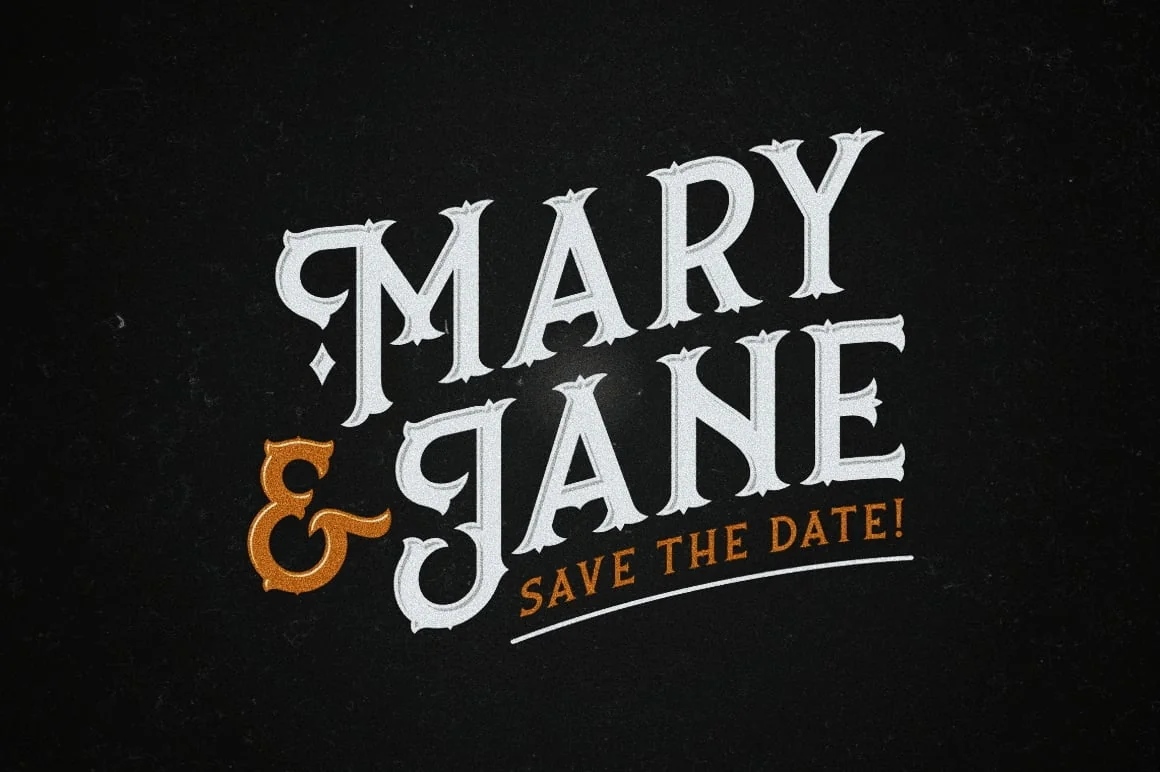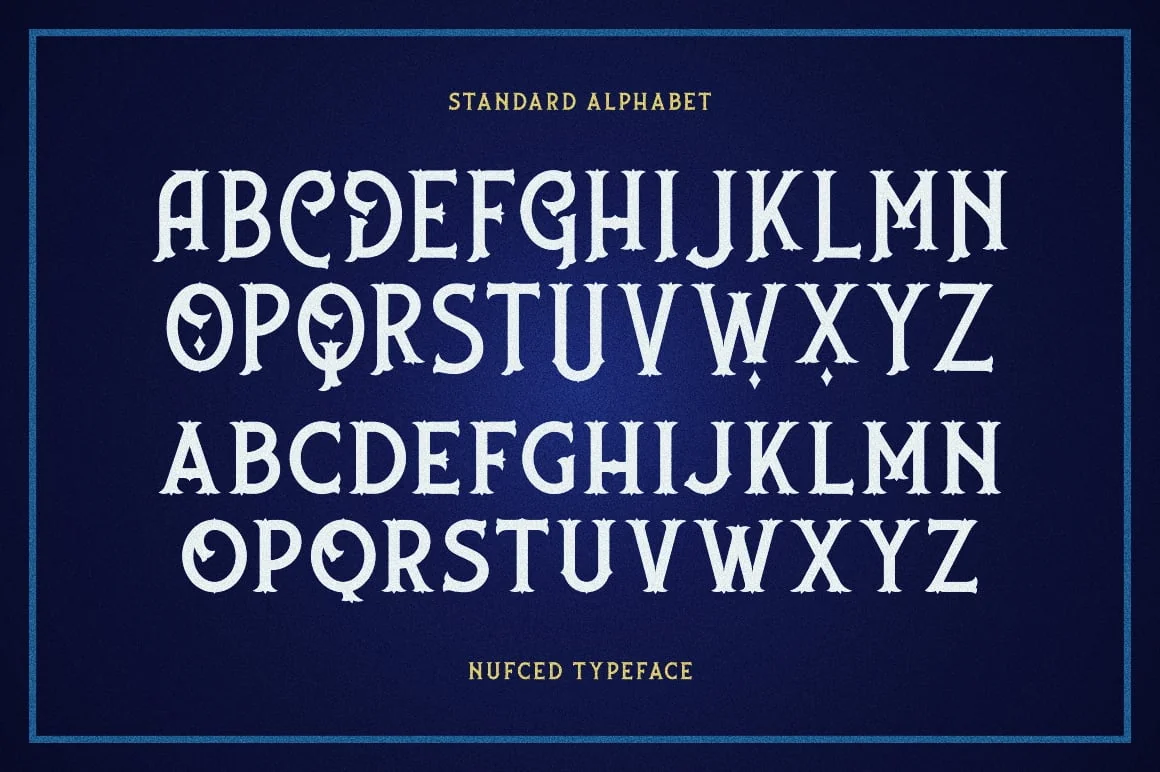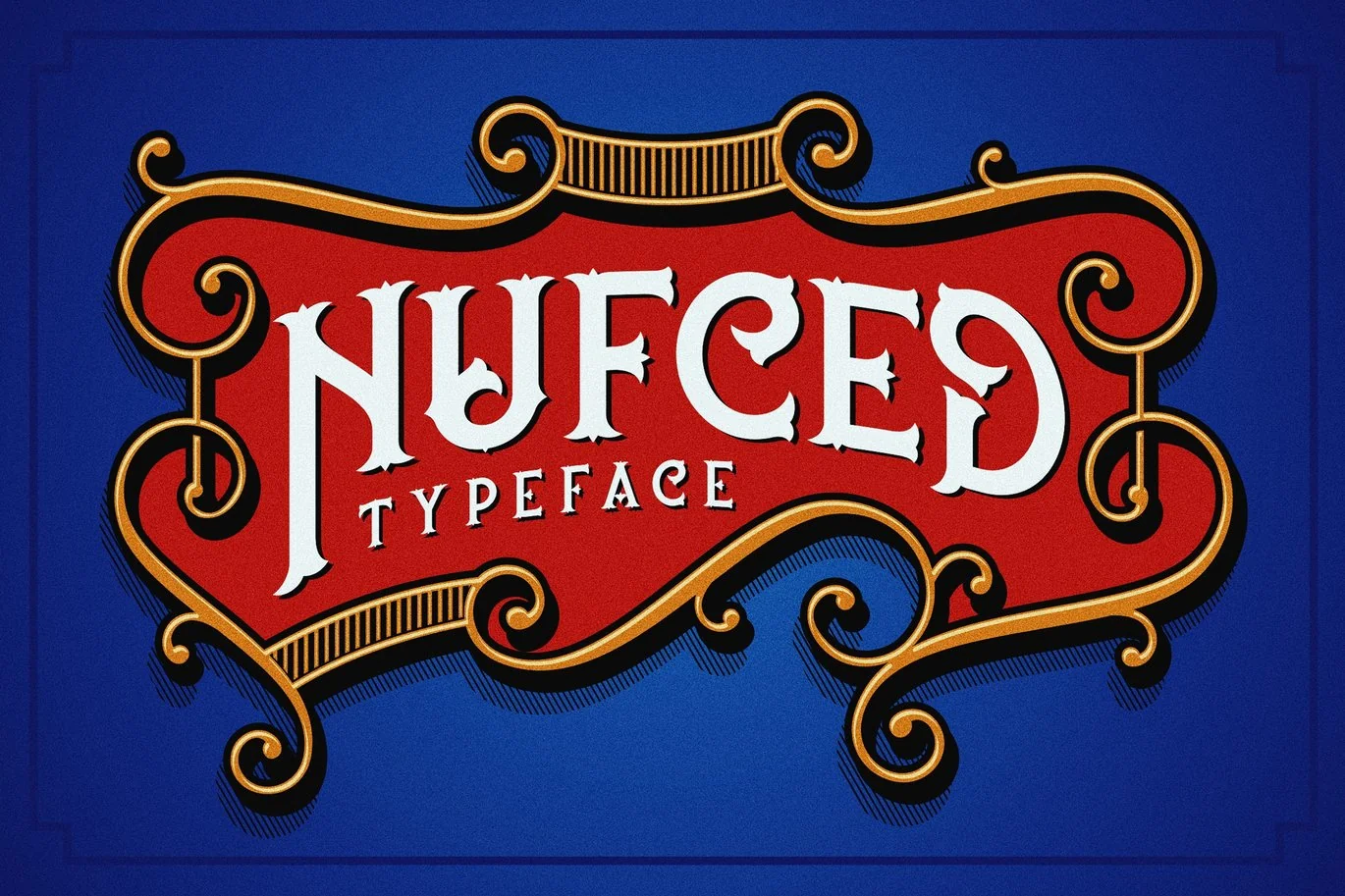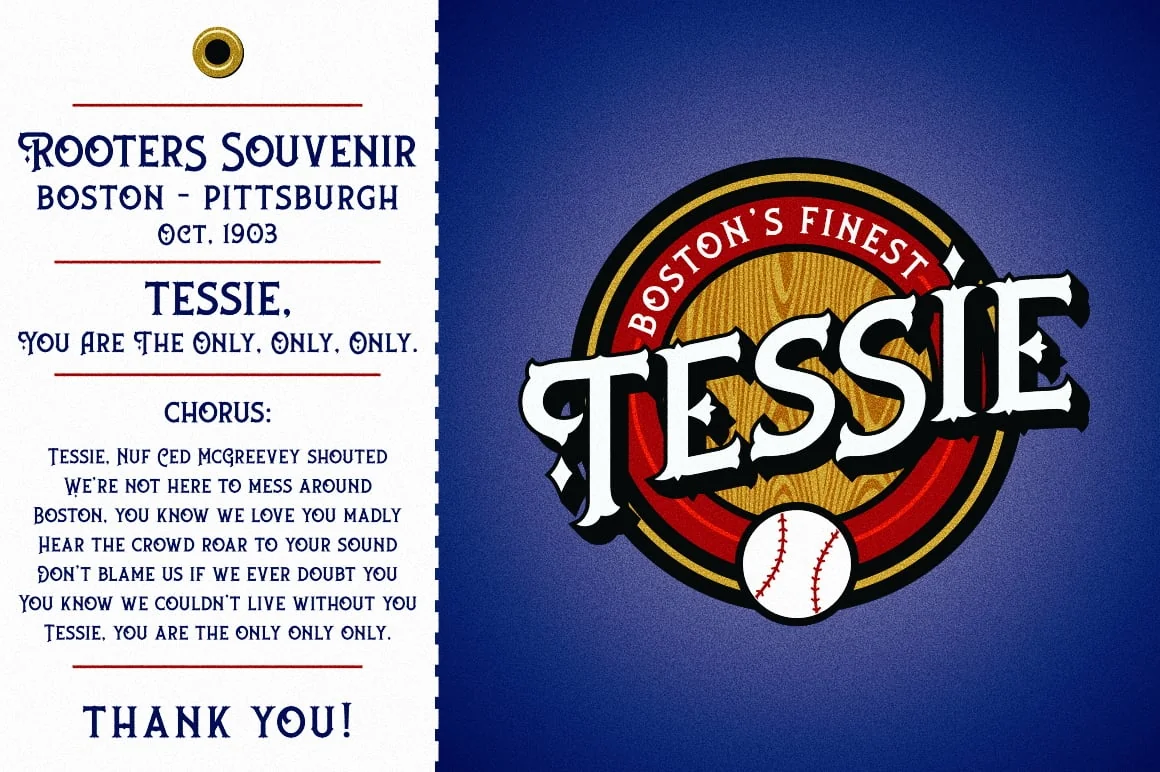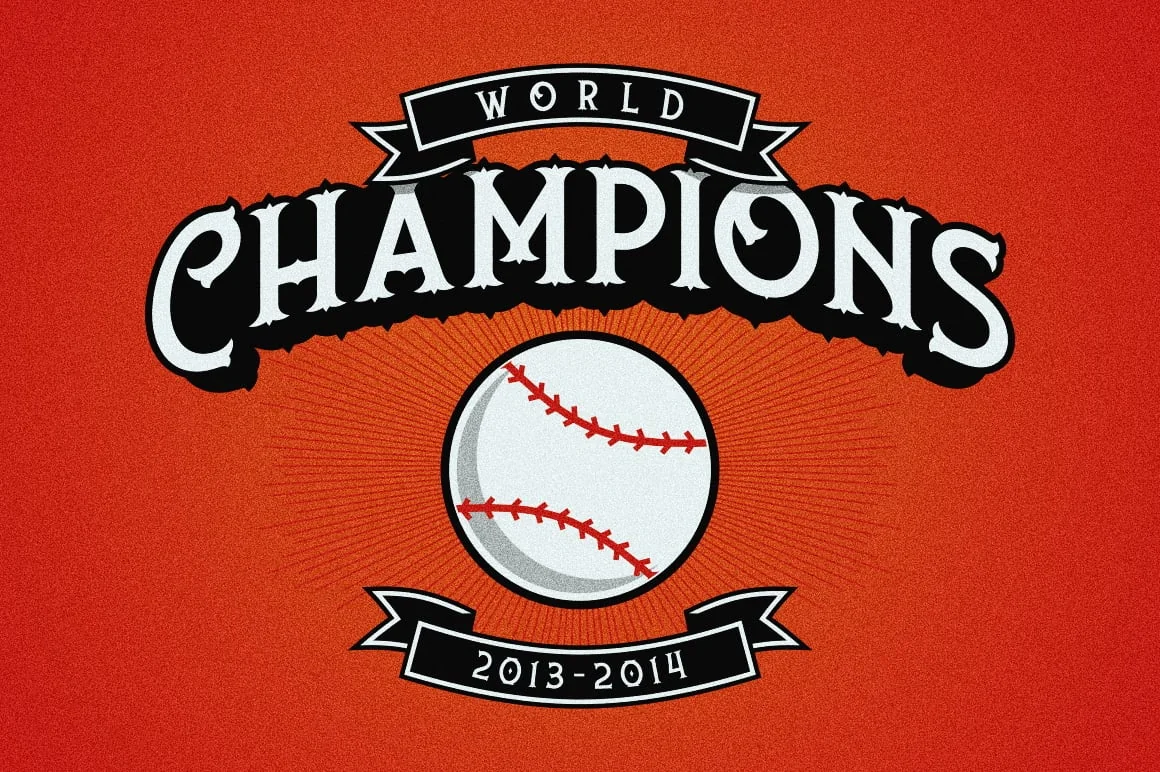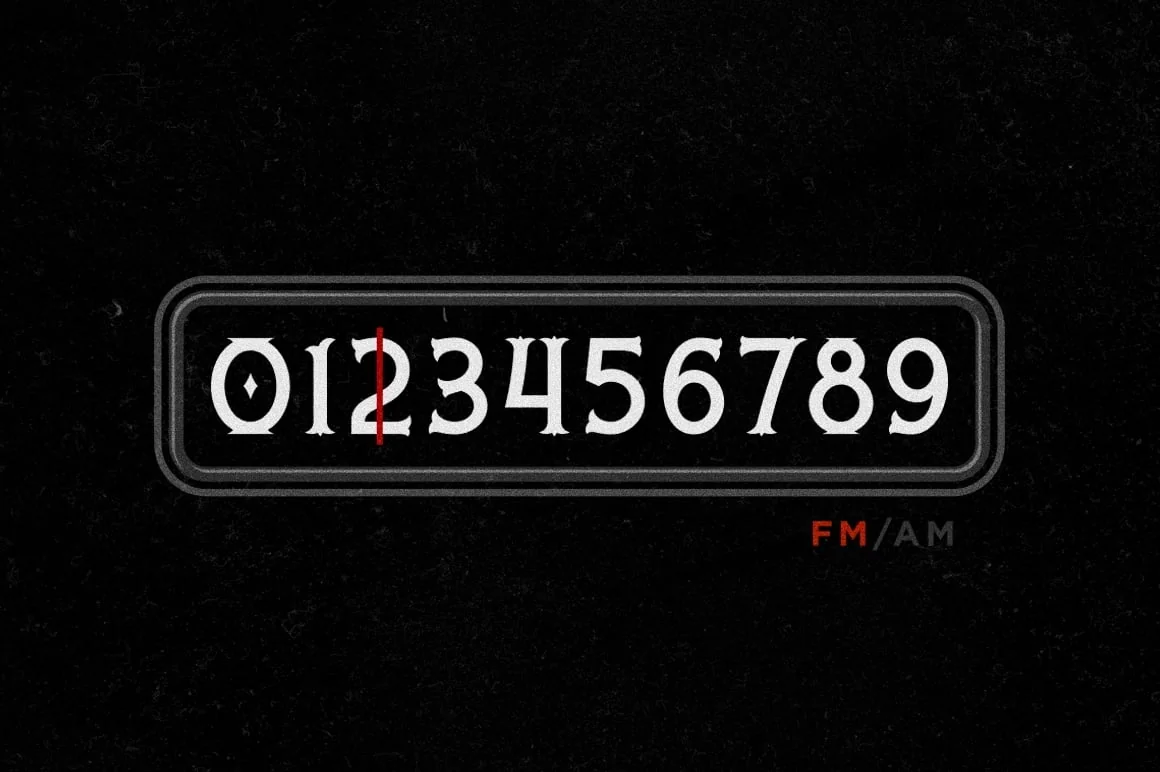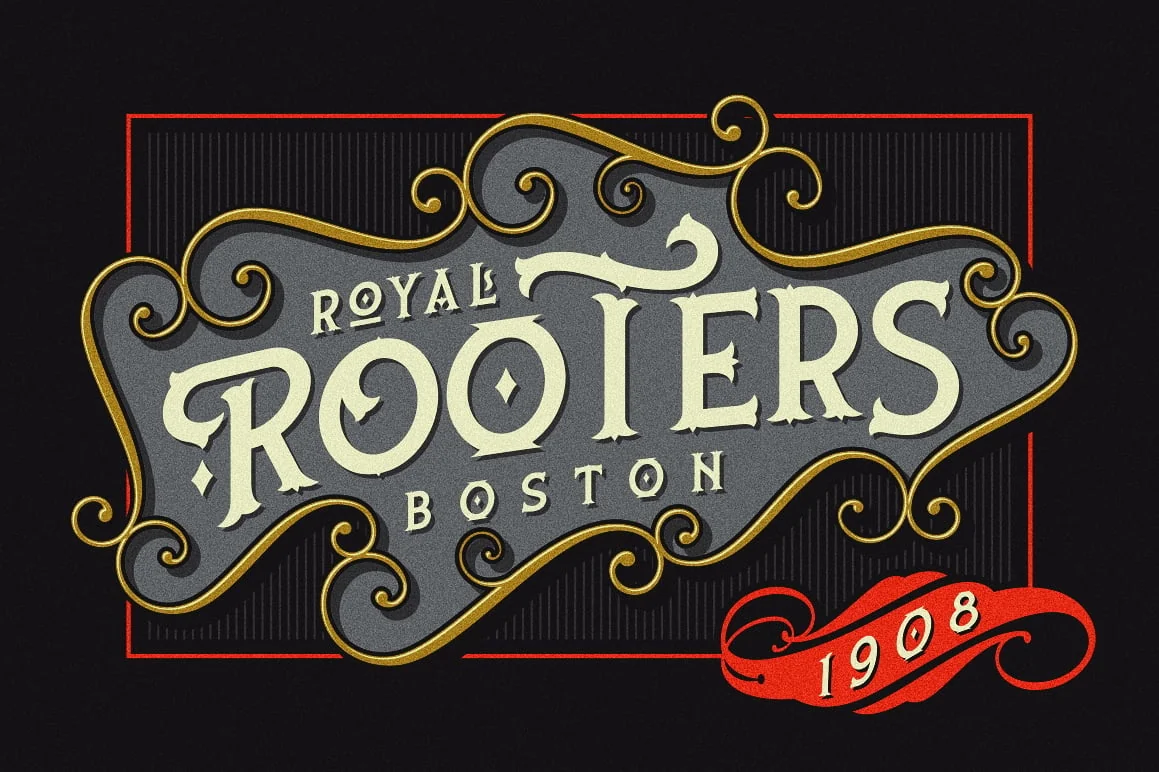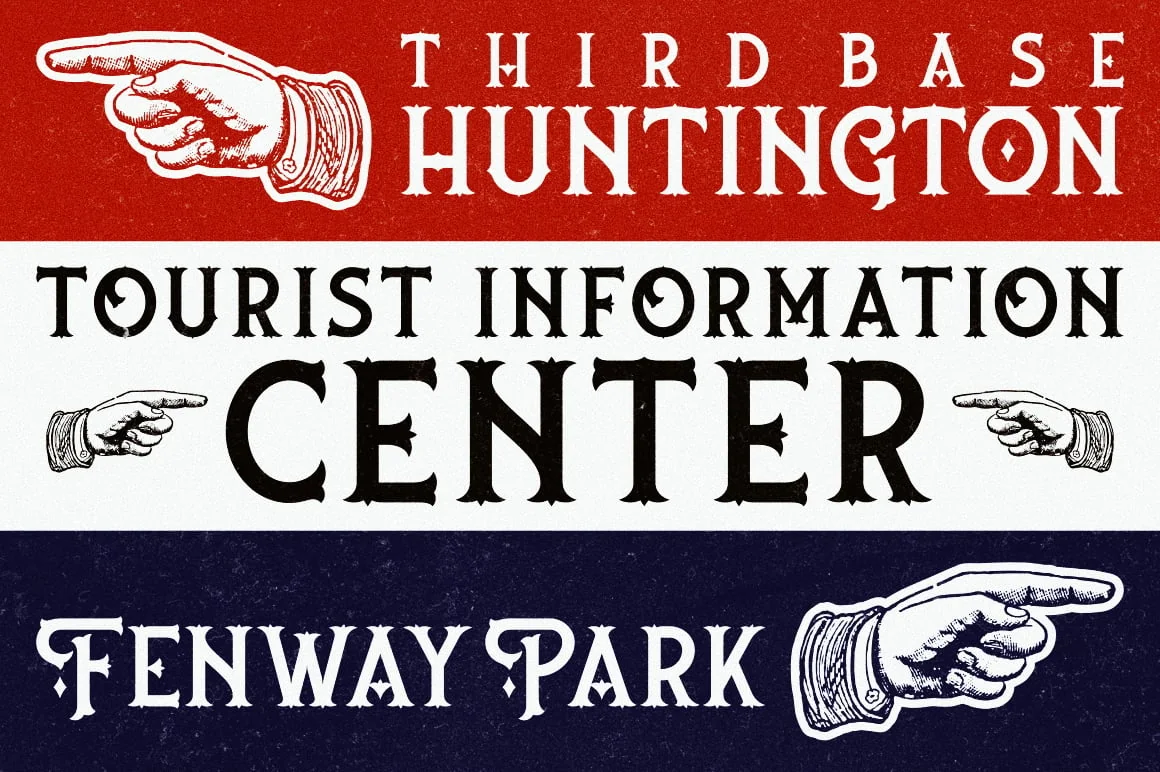
Nufced Typeface
Introducing our latest typeface; Nufced, an all-caps typeface that will tickle your design-palate. A mix between sporty and vintage themed typework that inspired by the old American advertisement letters.
Nufced is a serif like no other, it gives you strong and sharp feels without sacrificing the flow and flexibilities too. Suits best for any sports and vintage designs themed project.
- Upper and lowercase,
- Numeral and punctuations,
- Multilingual characters (ß is included too, chill),
- Alternate characters (OpenType features),